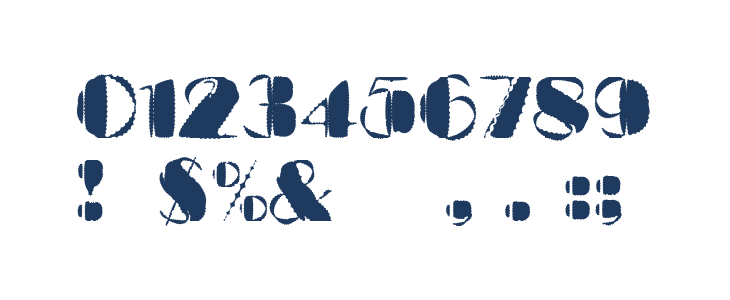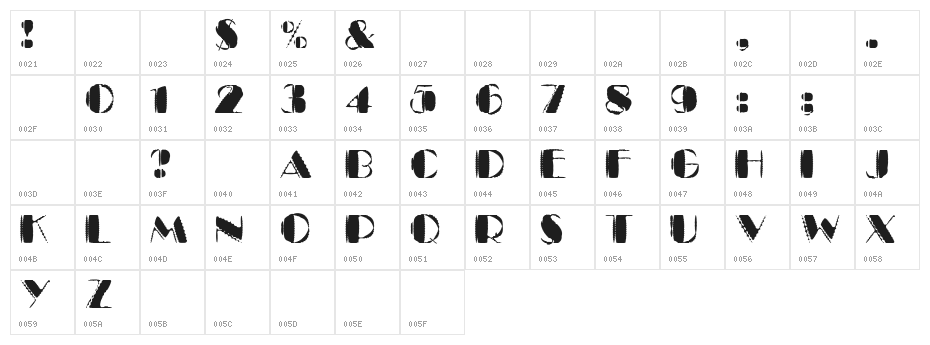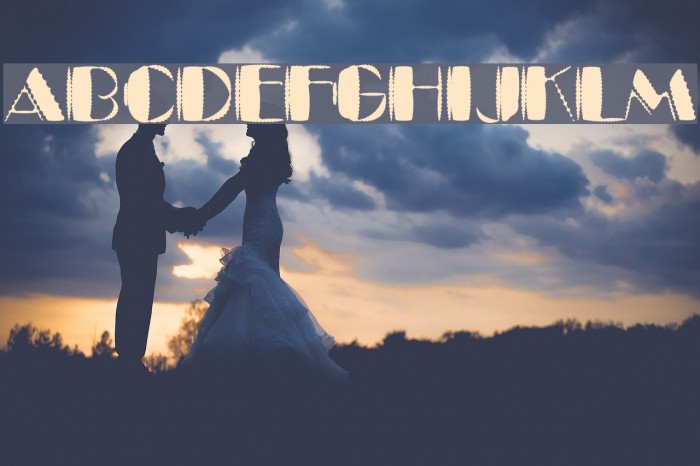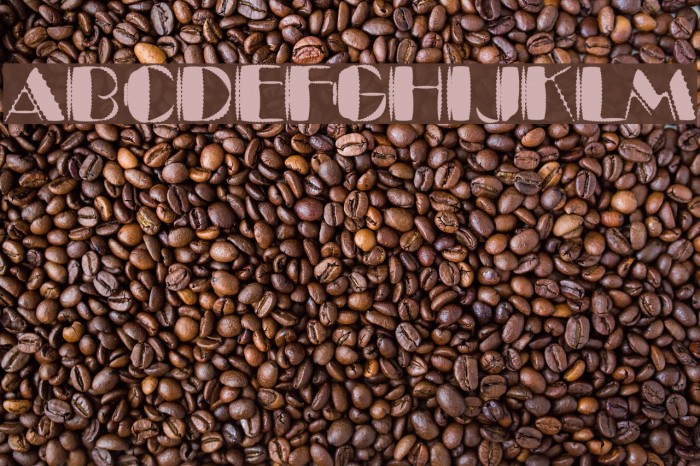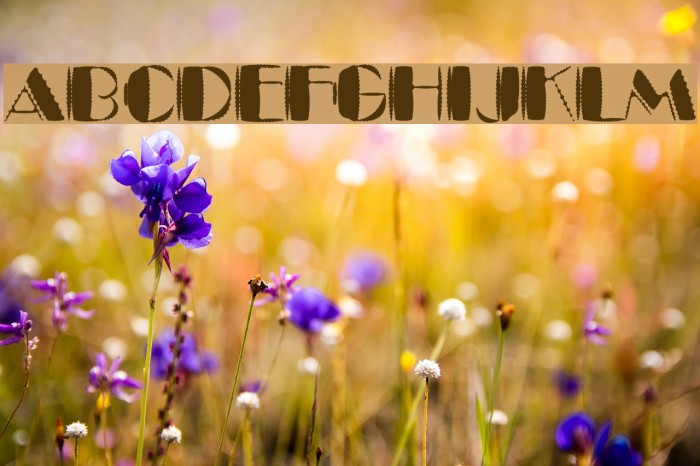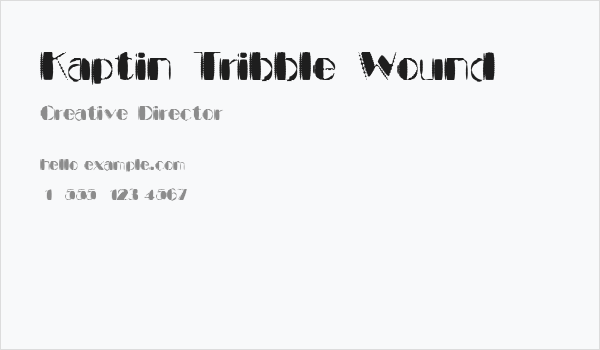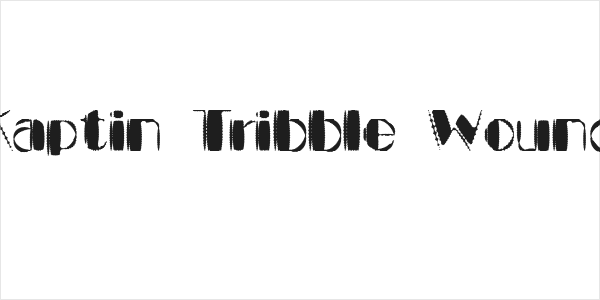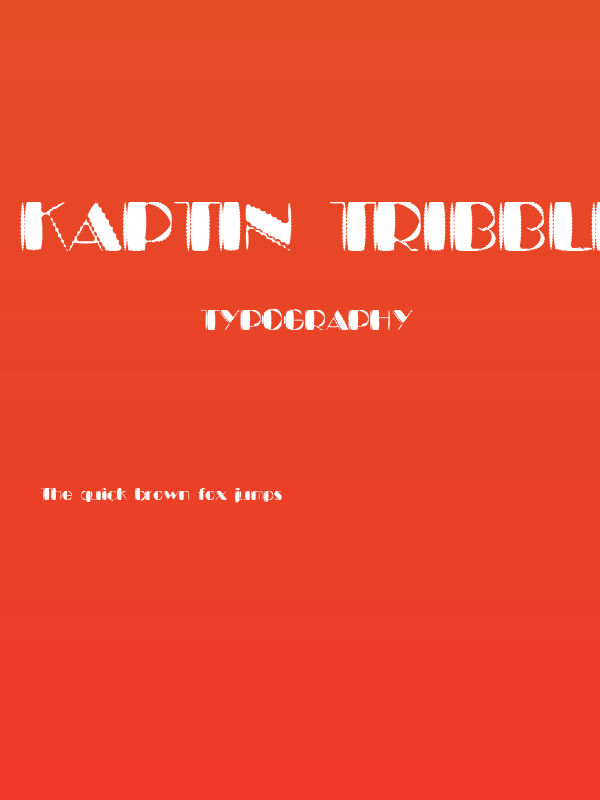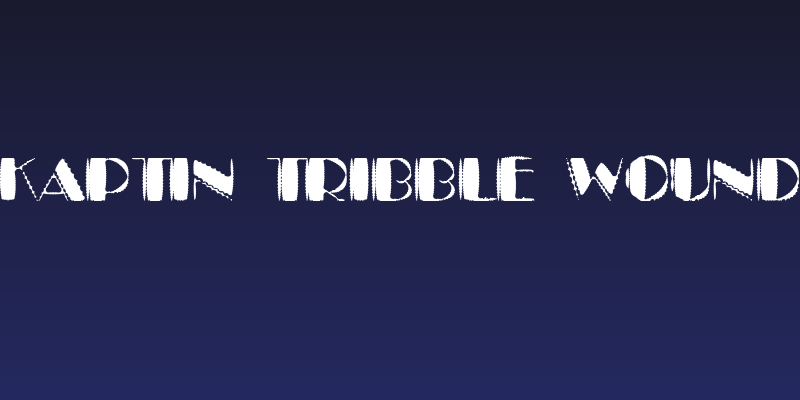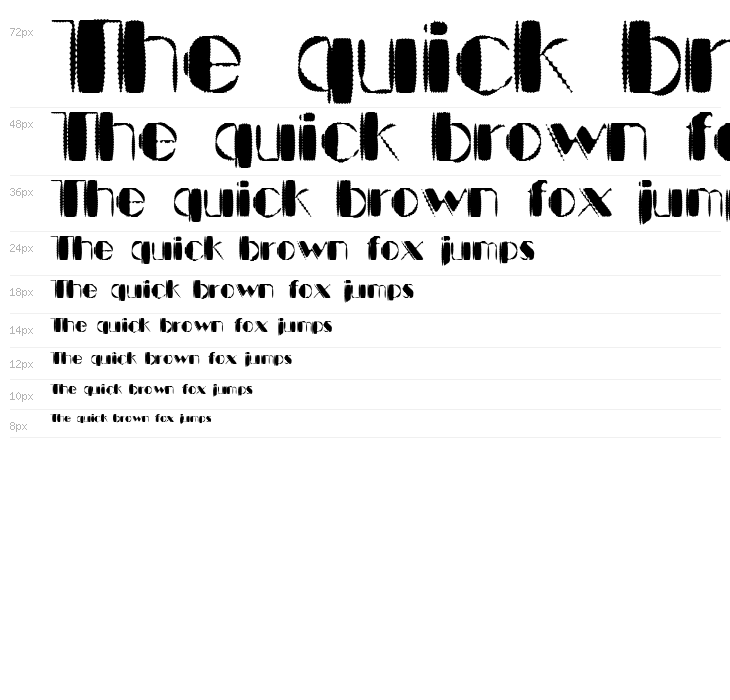
This font features a bold and dynamic style with a unique distressed texture that gives it a rugged and edgy appearance. The characters are wide and have a slightly irregular form, adding to the font's distinctive look. The uppercase and lowercase letters maintain a consistent weight, while the numbers and special characters follow the same design principles, ensuring a cohesive appearance across all glyphs. The font's high contrast between thick and thin strokes enhances its visual impact, making it suitable for attention-grabbing designs.
| Overall Style | Modern, Edgy |
| Proposed Projects | Ideal for projects that require a bold statement, such as posters, album covers, branding for edgy products, or any design needing a strong visual impact. |